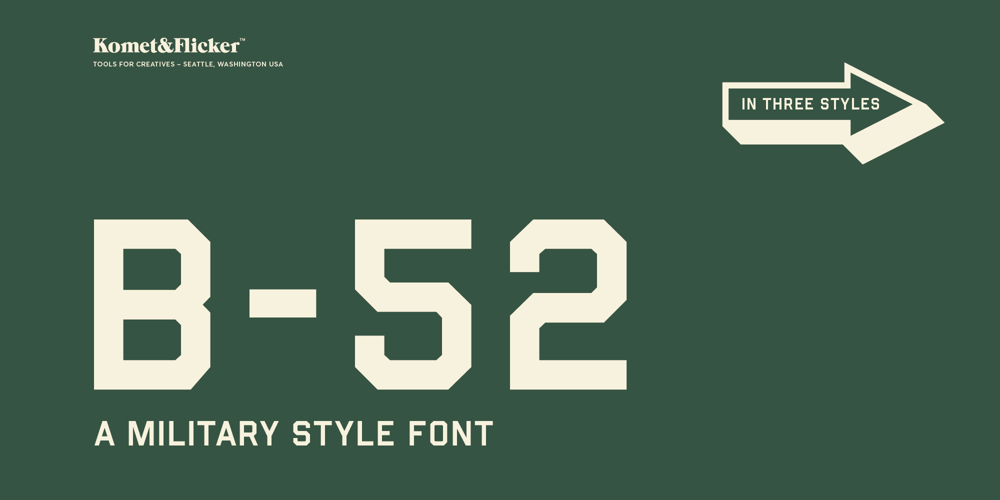
B52 font
B52 Font Family was designed by David Phillips and published by Komet & Flicker. B52 contains 3 styles and family package options. Command attention with B-52, a striking font inspired by the rugged lettering found on military vehicles. This font also has a strong retro industrial and athletic vibe that works well for modern-vintage style designs. Designed for those who need their message to stand out with confidence, B-52 captures the essence of strength and precision.B-52 comes in three styles:• B-52 Regular• B-52 Stencil• B-52 ShadowTHIS FONT INCLUDES• Full A-Z uppercase and small caps basic latin characters• Select European specific characters• Numbers, punctuation, and select symbols• Set of 15 custom connecting word glyphs• Set of 15 Air Force themed dingbatsIn Illustrator, the extra custom glyphs can easily be accessed in the “Type → Glyphs” panel. In Photoshop they can be accessed through “Type → Panels → Glyphs Panel”.